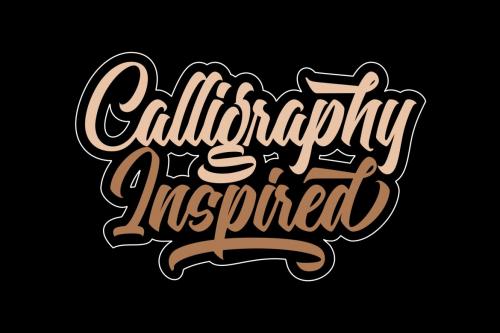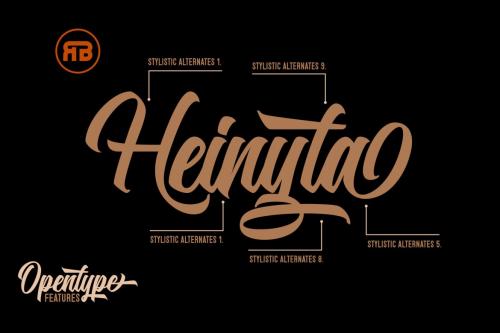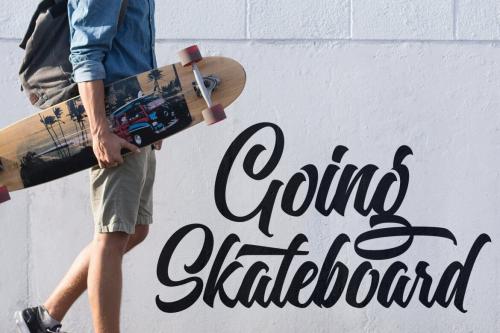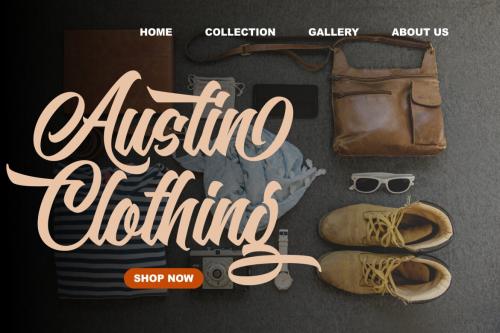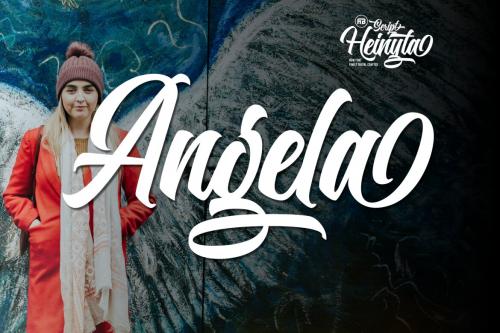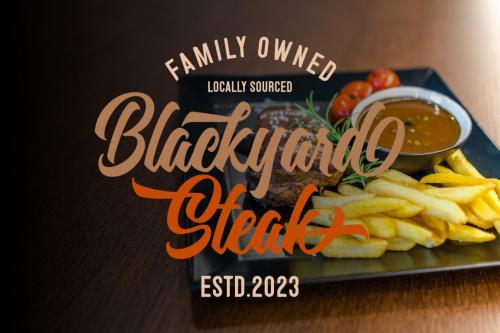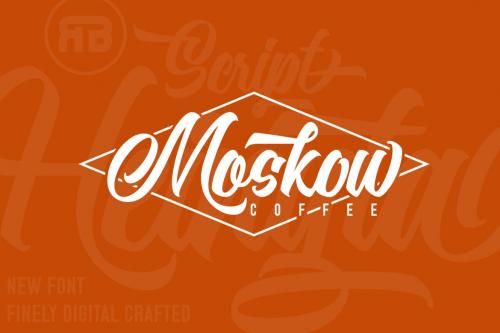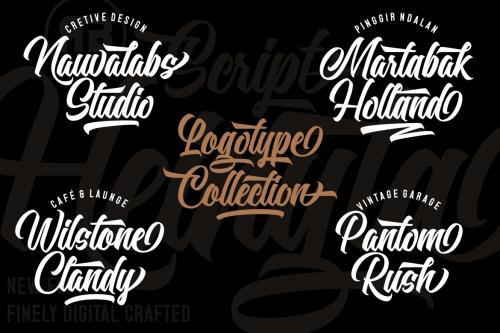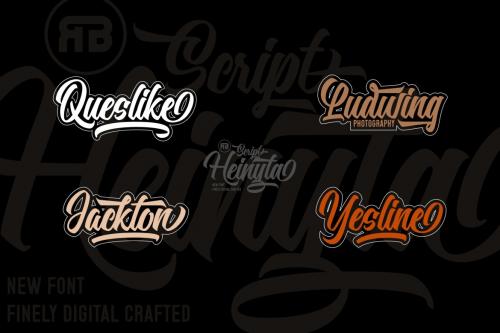
Proudly Present a new font called Heinyta inspired by urban script fonts with sharp and beautiful letters that create fonts that are modern, trendy and elegant.
Heinyta is a font intended for logotype creation. But with almost 500 glyphs inside the font, you can also create many of other typography designs. Stylistic Alternates, Swashes, Contectual Alternate and Ligatures is a list of features from OpenType which you can use to pairing the letters each other powerfully.
Heinyta came with opentype features such stylistic alternates, stylistic sets & ligatures good for logotype, poster, badge, book cover, tshirt design, packaging and any more.